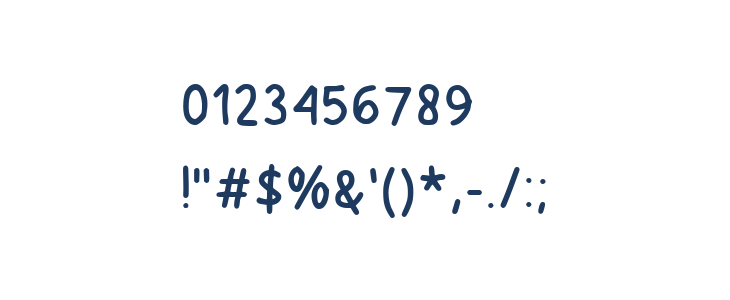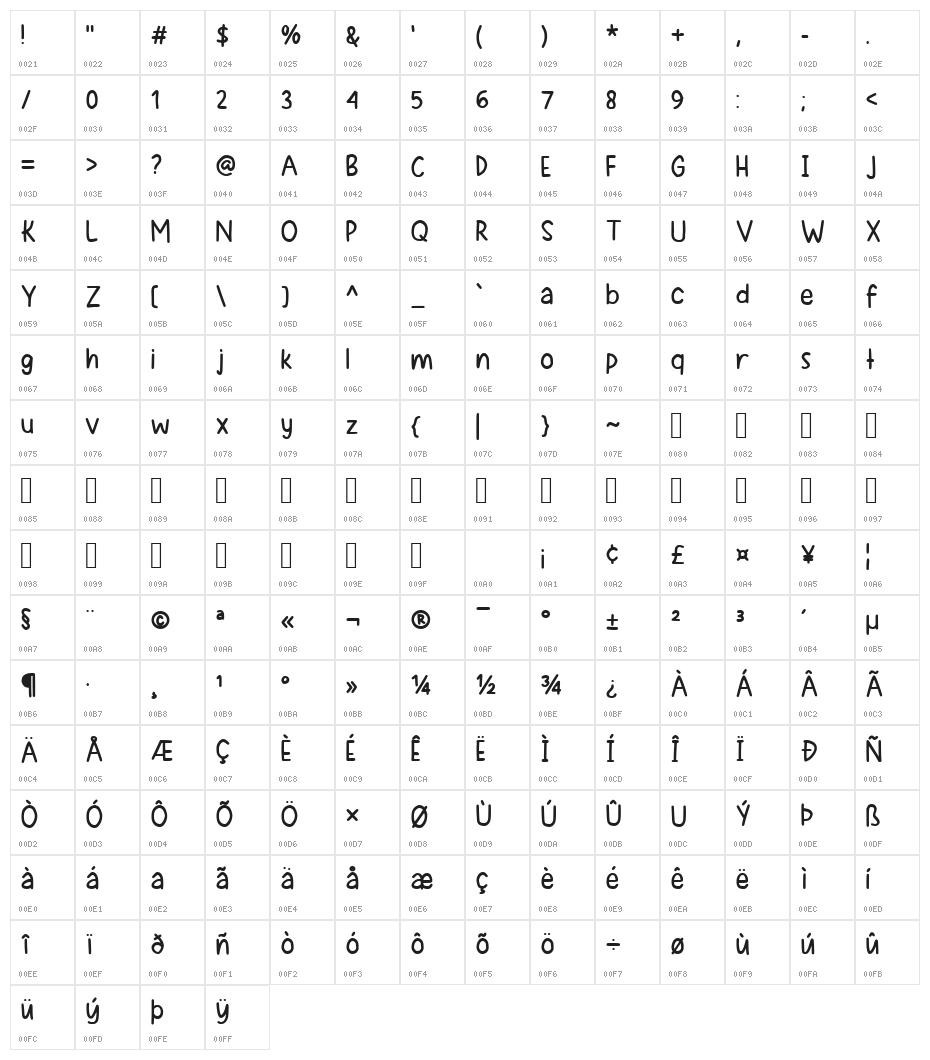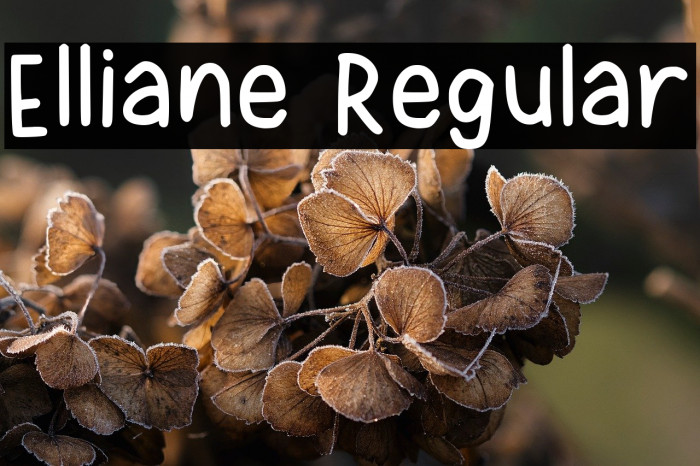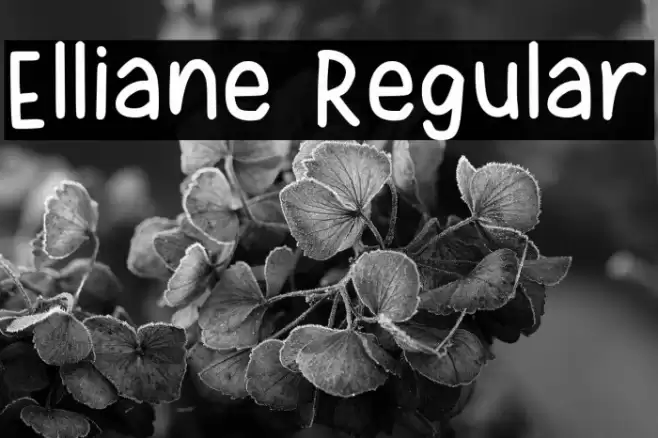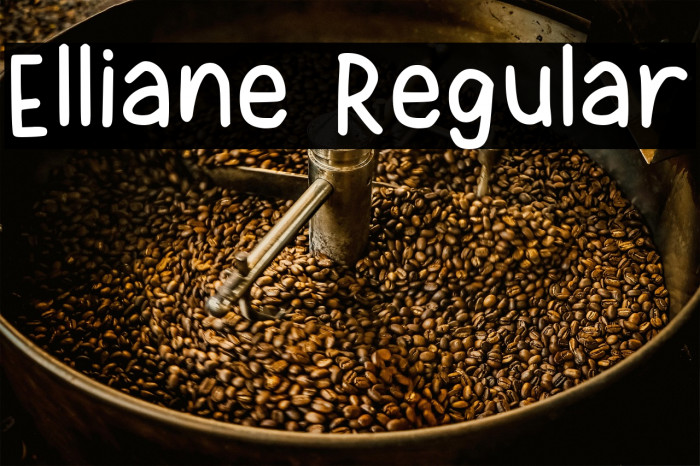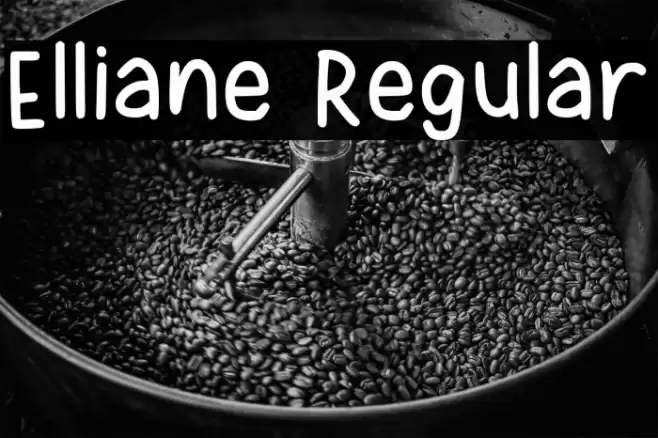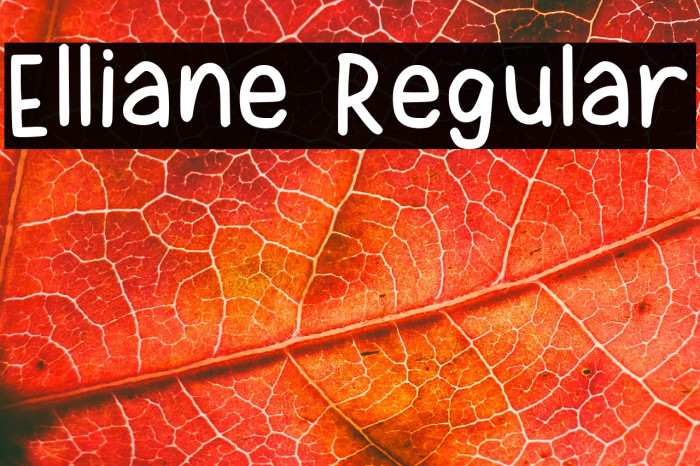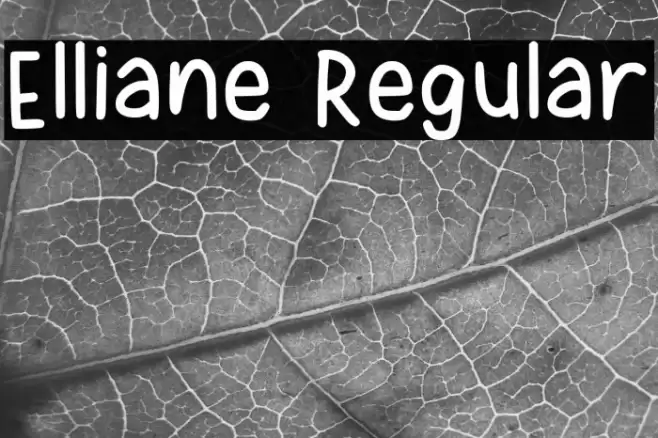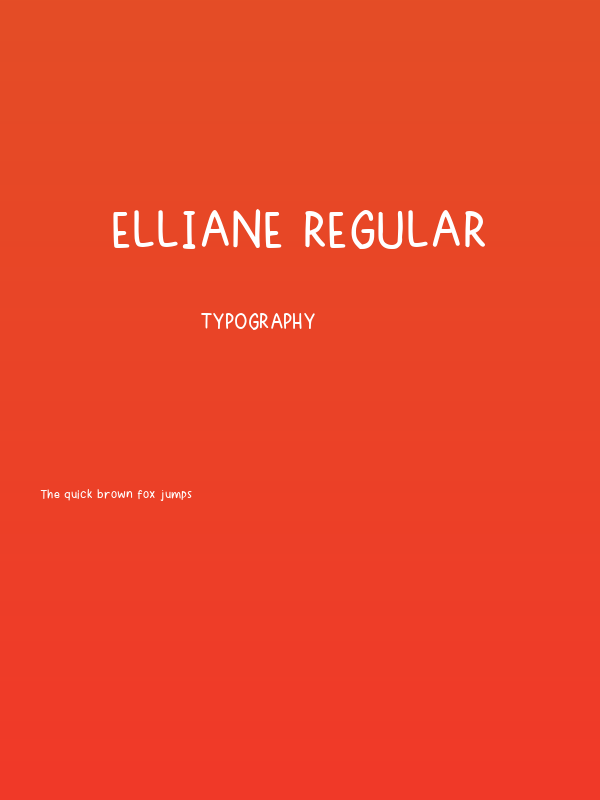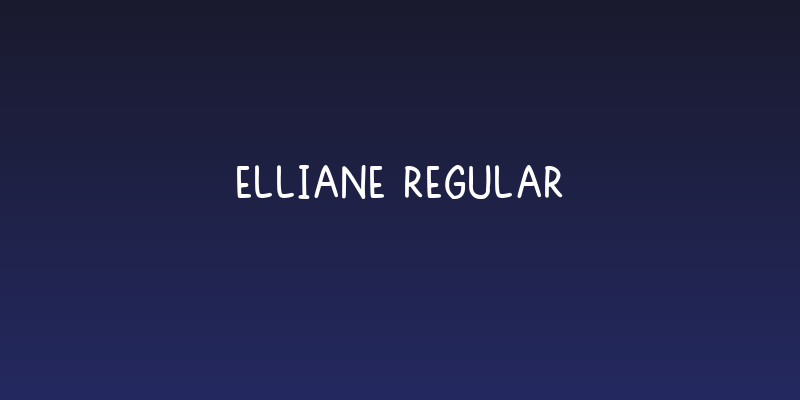
Elliane Regular Font
Elliane Regular Description
This font features a playful and casual handwritten style, characterized by its rounded and slightly irregular letterforms. The strokes are consistent in width, giving it a uniform appearance while maintaining a friendly and approachable vibe. The uppercase and lowercase letters are well-balanced, with a slight tilt that adds to its informal charm. Numbers and special characters are designed to match the overall aesthetic, making it versatile for various uses. The font's simplicity and readability make it suitable for both digital and print media, where a personal touch is desired.
| Use Case | Headlines, Informal text, Branding |
| Proposed Projects | Ideal for greeting cards, children's books, casual branding, and social media graphics. |